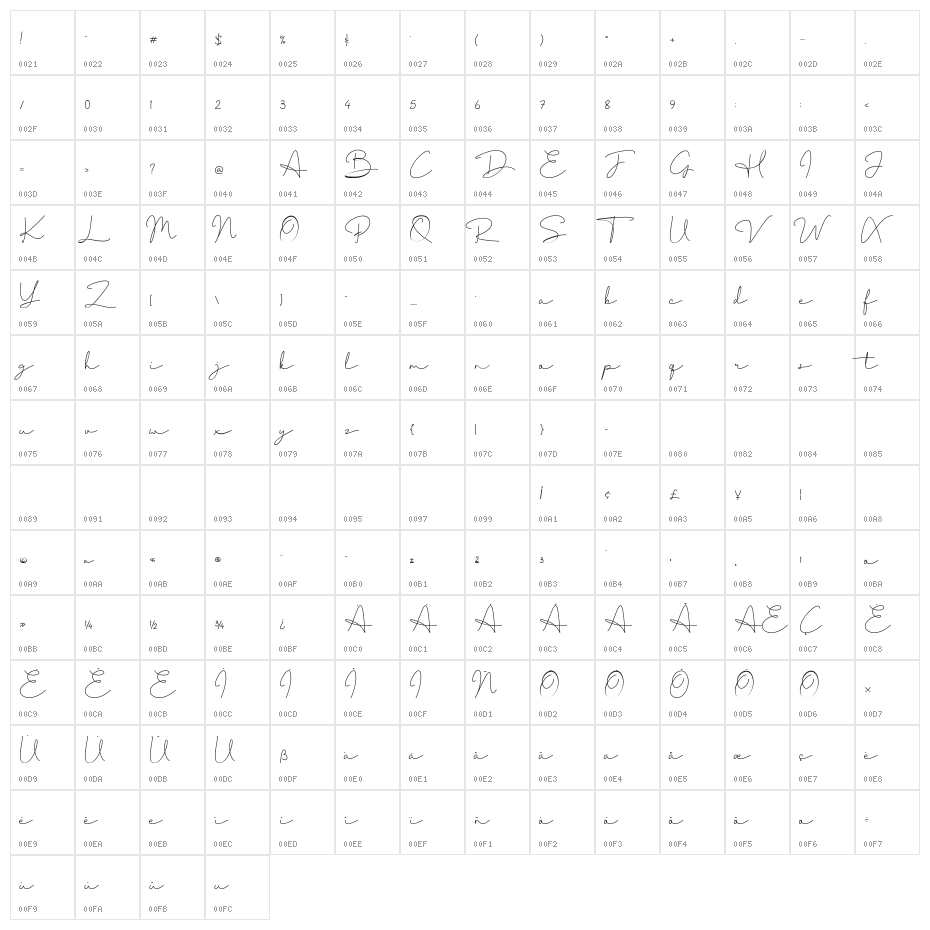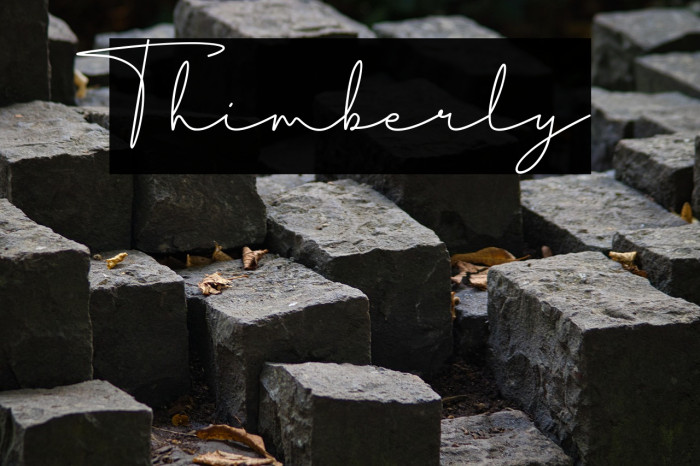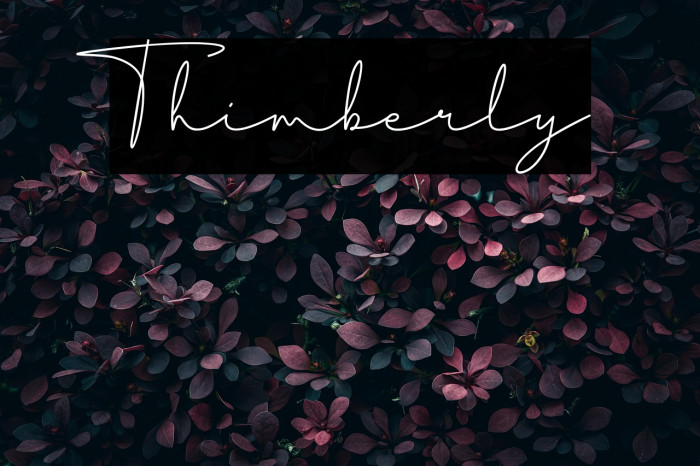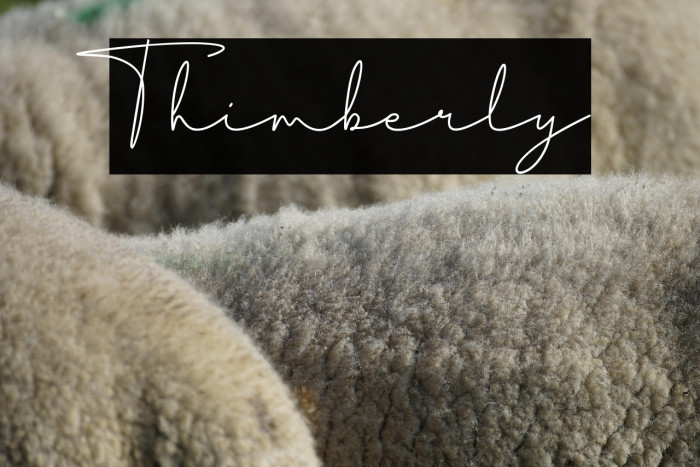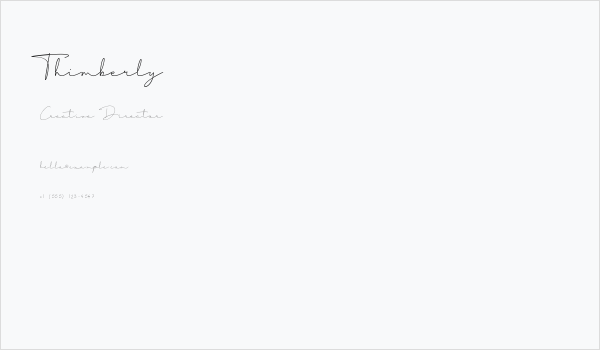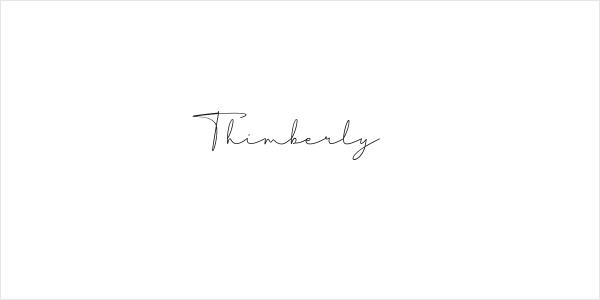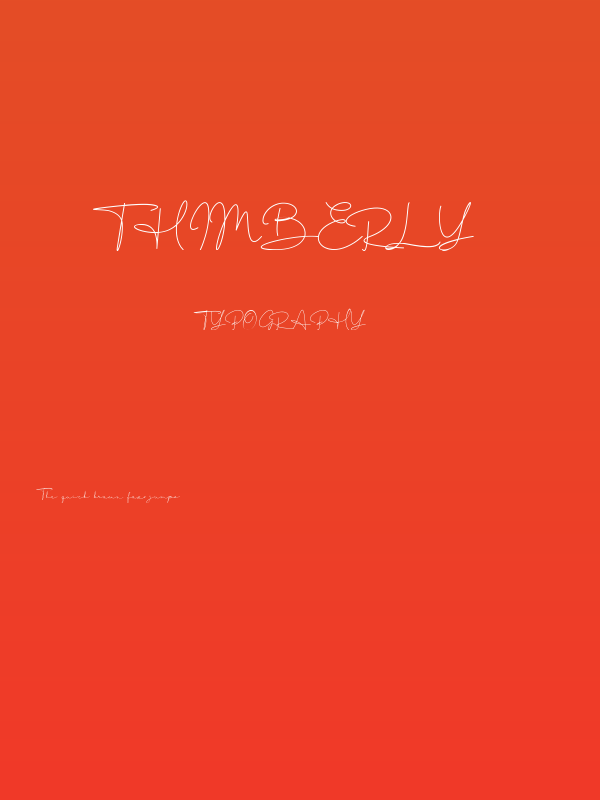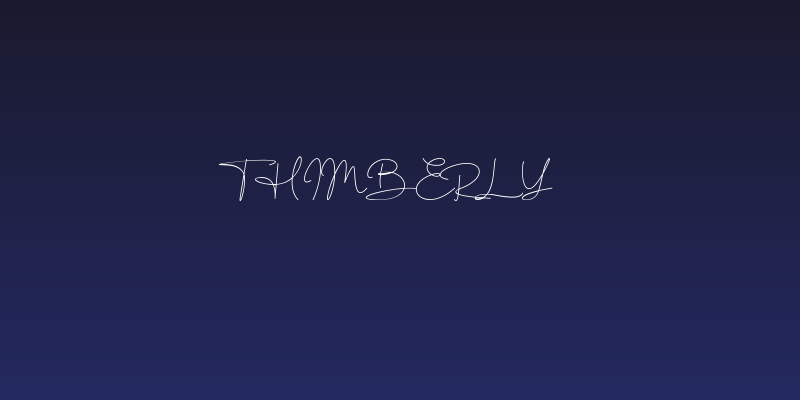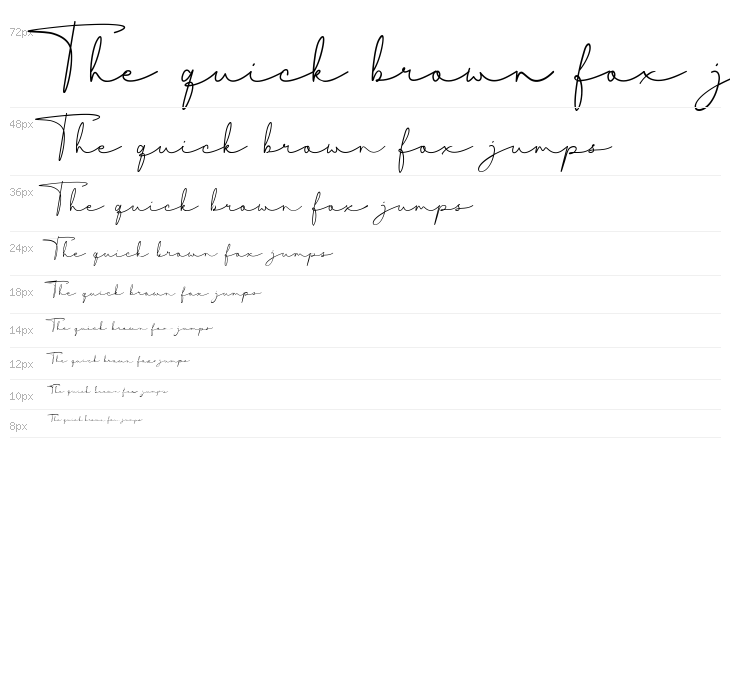
Thimberly Font
Thimberly Description
This font exhibits a delicate and flowing script style, characterized by its elegant and continuous strokes that mimic natural handwriting. The uppercase letters are slightly more elaborate, with graceful loops and curves, while the lowercase letters maintain a consistent fluidity and simplicity. The numerals are clear and straightforward, complementing the overall aesthetic. Special characters are integrated seamlessly, maintaining the font's cohesive and stylish appearance. This typeface is ideal for projects requiring a personal touch, such as invitations, greeting cards, or branding materials.
Overall StyleElegant, Handwritten
Use CaseHeadlines, Invitations, Personal Branding
Proposed ProjectsIdeal for wedding invitations, personal branding, greeting cards, and elegant stationery.